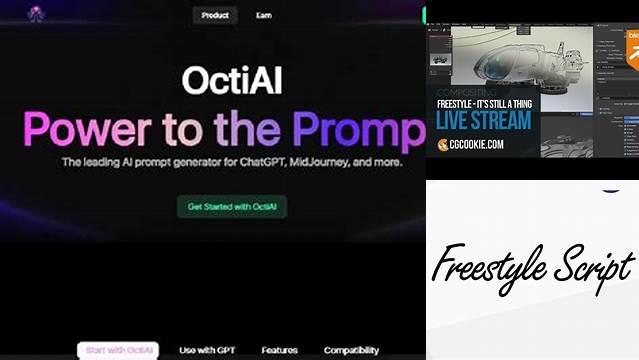
Freestyle Script Font: Uses, Free Options & More
Are you looking to add a touch of elegance and personality to your designs? Look no further than freestyle script, a font that embodies fluidity and grace. In this comprehensive guide, we'll delve into the world of freestyle script, exploring its history, characteristics, and versatile applications. We'll also address common questions and provide resources to help you get started. So, buckle up, guys, and let's embark on this exciting journey into the realm of freestyle script!
What is Freestyle Script?
Freestyle Script is more than just a font; it's a form of artistic expression. Its origins can be traced back to the art of calligraphy, where each stroke is carefully crafted to create a visually appealing letterform. This font style mimics the natural flow of handwriting, resulting in a design that feels both personal and sophisticated. When we talk about Freestyle Script fonts, we're referring to a category of typefaces that share these characteristics, although they may have slight variations in style and weight. The real magic of Freestyle Script lies in its ability to convey emotions and set the tone of a design. Whether it's a wedding invitation, a logo, or a website, this font can instantly add a touch of warmth and personality. Understanding the nuances of Freestyle Script – its curves, loops, and swashes – is key to using it effectively. You need to consider the context in which you're using it. For instance, a more formal event might call for a refined and elegant version, while a casual project might benefit from a playful and whimsical style. The key takeaway here is that Freestyle Script is a powerful tool that can elevate your designs when used thoughtfully. By exploring the different styles and weights available, and by understanding the message you want to convey, you can harness the full potential of this versatile font. Always remember to consider the legibility of your text. While Freestyle Script is beautiful, it's crucial to ensure that your message is clear and easy to read. Experiment with different sizes, spacing, and colors to achieve the perfect balance between aesthetics and readability. In essence, mastering Freestyle Script is about finding that sweet spot where elegance meets functionality.
The Allure of Freestyle Script: Why It's Still Popular
In a world saturated with digital fonts, the enduring popularity of freestyle script speaks volumes about its unique appeal. So, what is it about this font that continues to captivate designers and audiences alike? The answer lies in its ability to evoke emotions and create a sense of connection. Unlike rigid, geometric fonts, Freestyle Script has a human touch. Its flowing lines and subtle imperfections remind us of handwritten letters, adding a personal and intimate feel to any design. This is particularly effective in contexts where you want to convey warmth, sincerity, or nostalgia. Think about wedding invitations, thank-you notes, or branding for small businesses that prioritize a personal connection with their customers. The allure of Freestyle Script also lies in its versatility. It can be adapted to suit a wide range of styles and projects, from elegant and formal to playful and whimsical. The key is to choose the right variation and use it judiciously. A delicate and refined version might be perfect for a sophisticated event, while a bolder and more expressive style could be ideal for a creative project. Another factor contributing to its popularity is its timeless quality. While trends in design come and go, the elegance of Freestyle Script remains constant. It's a classic font that doesn't feel dated or cliché, making it a safe and reliable choice for projects that require a touch of sophistication. This timeless appeal is further enhanced by the ongoing evolution of Freestyle Script fonts. Designers are constantly creating new variations and interpretations, keeping the style fresh and relevant. This means that there's always something new to discover within the world of Freestyle Script, ensuring that it remains a vibrant and exciting option for designers.
Applications of Freestyle Script: Where to Use It
The beauty of freestyle script lies not only in its aesthetic appeal but also in its versatility. It's a font that can seamlessly blend into various design contexts, adding a touch of personality and elegance wherever it goes. But where exactly does Freestyle Script shine the brightest? Let's explore some key applications.
Branding and Logos:
For businesses aiming to project a friendly, approachable, and creative image, freestyle script can be a game-changer. Think about brands in the wedding industry, artisanal food businesses, or handmade crafts. A logo crafted in Freestyle Script can instantly convey a sense of authenticity and personal touch. However, it's crucial to ensure legibility, especially when the logo is scaled down. Using it sparingly and pairing it with a cleaner, more readable font for body text is often the best approach. Imagine a logo for a handcrafted jewelry business. The flowing lines of Freestyle Script could beautifully represent the delicate nature of the jewelry, while also conveying the artisan's personal touch. The application of Freestyle Script in branding is all about creating a visual identity that resonates with your target audience and tells your brand story effectively.
Invitations and Stationery:
This is where Freestyle Script truly excels. From wedding invitations to birthday cards, its elegant and flowing lines add a touch of sophistication and romance. The font's calligraphic nature makes it perfect for formal occasions, but it can also be used for more casual events depending on the specific style chosen. Envision a wedding invitation adorned with Freestyle Script calligraphy. The swirling letters create a sense of anticipation and elegance, setting the tone for a special celebration. When using Freestyle Script for invitations, consider the overall design aesthetic. Pairing it with delicate floral illustrations or a classic color palette can further enhance its beauty.
Headlines and Titles:
Freestyle Script can be used effectively in headlines and titles to grab attention and create visual interest. However, it's important to use it sparingly and ensure readability. Avoid using it for long blocks of text, as its intricate style can become tiring on the eyes. A website header featuring a carefully chosen Freestyle Script font can instantly create a memorable impression. The key to successful use of Freestyle Script in headlines is balance. Pair it with a clean and legible font for the body text to ensure a cohesive and readable design.
Social Media Graphics:
In the fast-paced world of social media, standing out is crucial. Freestyle Script can help you create eye-catching graphics that capture attention. Use it for quotes, announcements, or promotional materials to add a touch of personality and flair. A social media post featuring a motivational quote written in Freestyle Script can be both visually appealing and inspiring. When using Freestyle Script for social media, consider the platform's visual style and choose a variation that complements it. Using it strategically can help you create a consistent and recognizable brand presence.
Other Creative Projects:
The possibilities are endless! Freestyle Script can be incorporated into various creative projects, such as posters, book covers, packaging designs, and even apparel. Its versatility allows you to experiment and create unique and memorable designs. Imagine a book cover featuring a bold Freestyle Script title. The font's flowing lines could beautifully represent the story's themes and create a sense of intrigue. When using Freestyle Script in creative projects, don't be afraid to experiment with different styles, colors, and sizes to achieve the desired effect.
Freestyle Script SH: Exploring the Variations
When diving into the world of freestyle script, you'll quickly discover that it's not just one monolithic font. Instead, there's a fascinating array of variations, each with its own distinct character and charm. One such variation is Freestyle Script SH, and it's worth exploring what sets it apart. So, what exactly is Freestyle Script SH, and how does it differ from other freestyle script styles? In essence, Freestyle Script SH represents a specific interpretation or design of the Freestyle Script typeface. It might feature unique characteristics in terms of letterform design, stroke thickness, or overall aesthetic. To truly understand the nuances of Freestyle Script SH, it's helpful to compare it to other common Freestyle Script variations. Some versions might be more formal and elegant, while others lean towards a more playful and whimsical style. Freestyle Script SH could fall anywhere on this spectrum, depending on the designer's intent. The specific characteristics of Freestyle Script SH will dictate its ideal applications. A more refined version might be perfect for wedding invitations or high-end branding, while a bolder and more expressive style could be well-suited for posters or social media graphics. It's always a good idea to experiment with different variations to see which one best fits your project's needs. When working with Freestyle Script SH, consider the overall design context. How does it interact with other fonts, colors, and images? Creating a harmonious visual balance is key to ensuring that your design is both beautiful and effective. Don't be afraid to explore different pairings and combinations to find the perfect match. The world of Freestyle Script is vast and varied, and Freestyle Script SH is just one piece of the puzzle. By understanding its unique characteristics and how it compares to other styles, you can unlock its full potential and create truly stunning designs.
Freestyle Script Alt: Unveiling the Alternative Characters
One of the fascinating aspects of freestyle script fonts is the presence of alternative characters, often denoted as